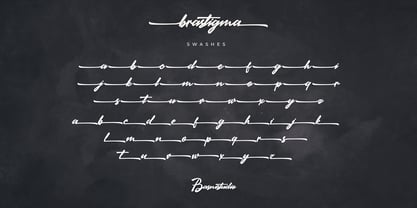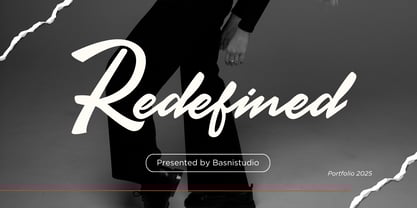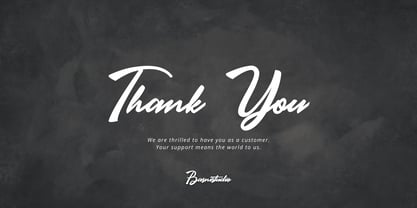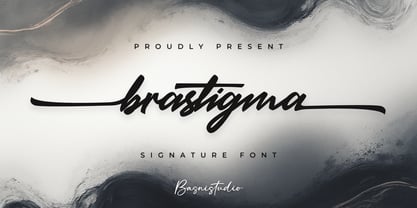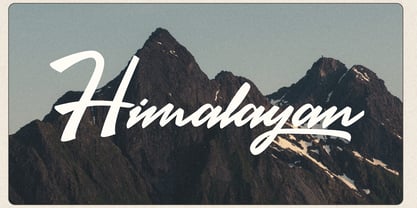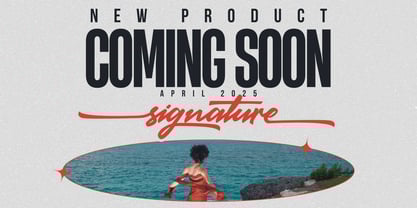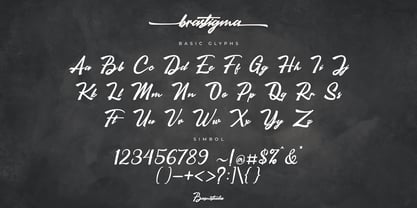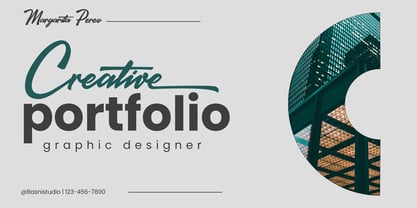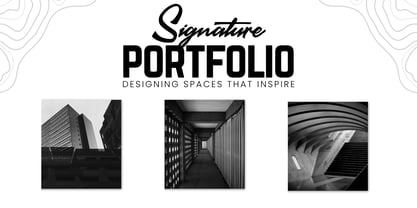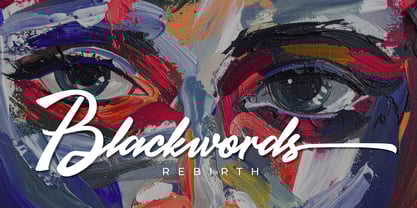
Brastigma
by Basnistudio
The Brastigma Font Family was designed by Bery Arisandi and published by Basnistudio. Brastigma contains 1 styles.
The Perfect Handwritten Touch for Your Designs Introducing Brastigma a Signature Font that adds a elegant, versatile touch to everything from branding and social media to invitations and packaging. Elegant & Versatile – Perfect for logos, quotes, greeting cards, and more Authentic Handwritten Feel – Created with real pen strokes for a natural look Easy to Use – Works seamlessly with all major design programs Whether you’re building a powerful brand identity or crafting a standout logo, Brastigma a Signature Font gives you the creative edge you need. What’s Included: Uppercase & lowercase letters Ligature Numbers & punctuation Swashes Multilingual Support ( Support for 90 languages ) If you have any questions please don’t hesitate to contact me Thank You
Designers: Bery Arisandi
Publisher: Basnistudio
Foundry: Basnistudio
Design Owner: Basnistudio